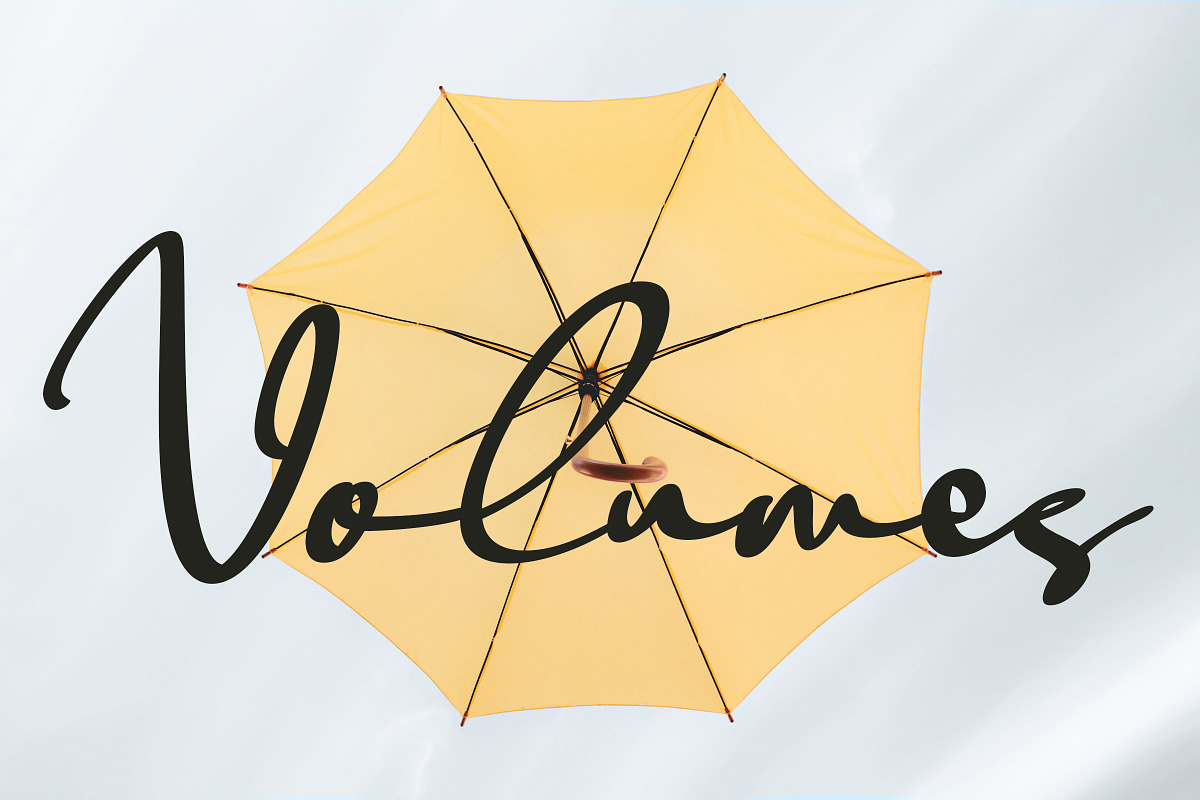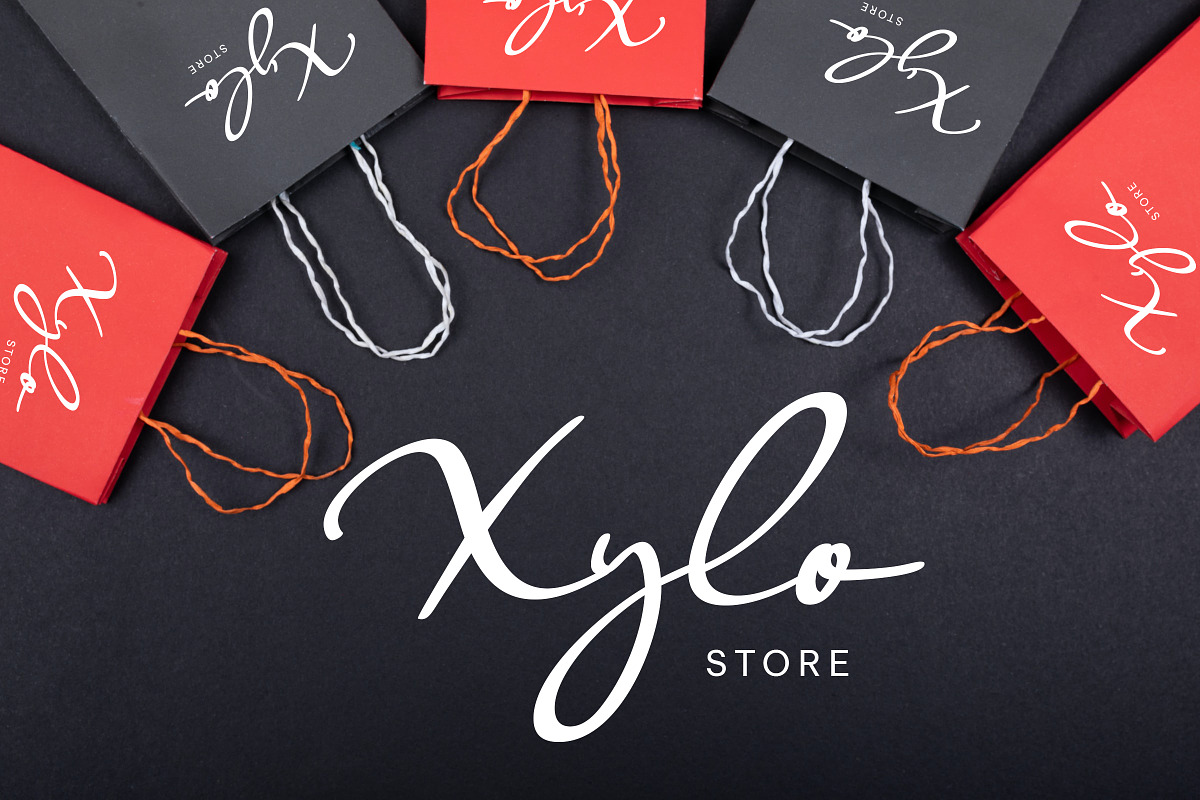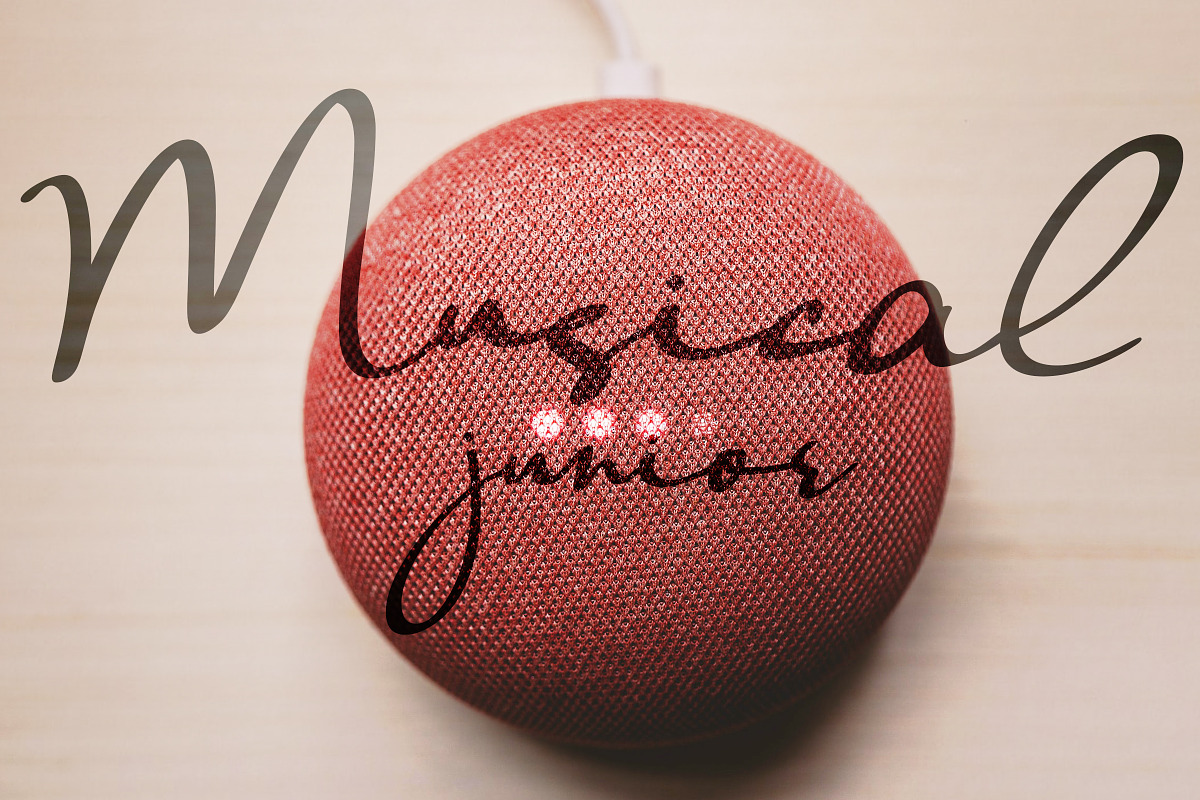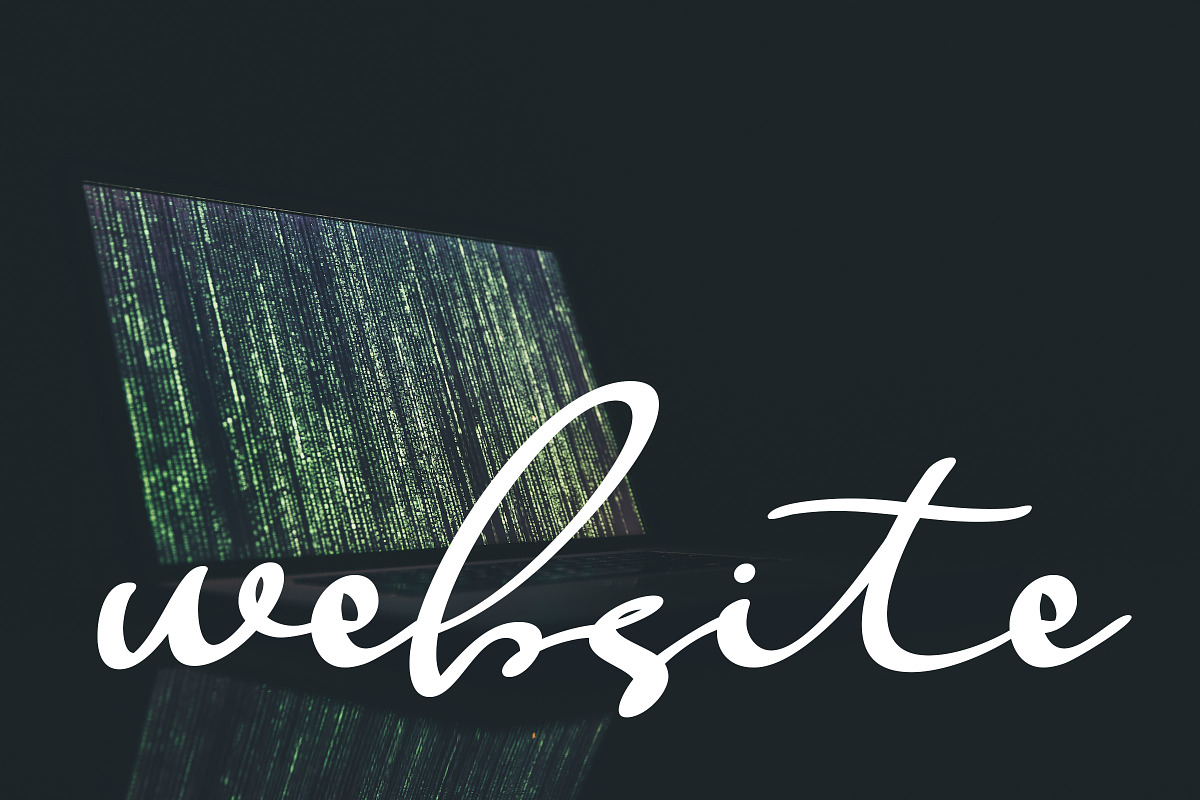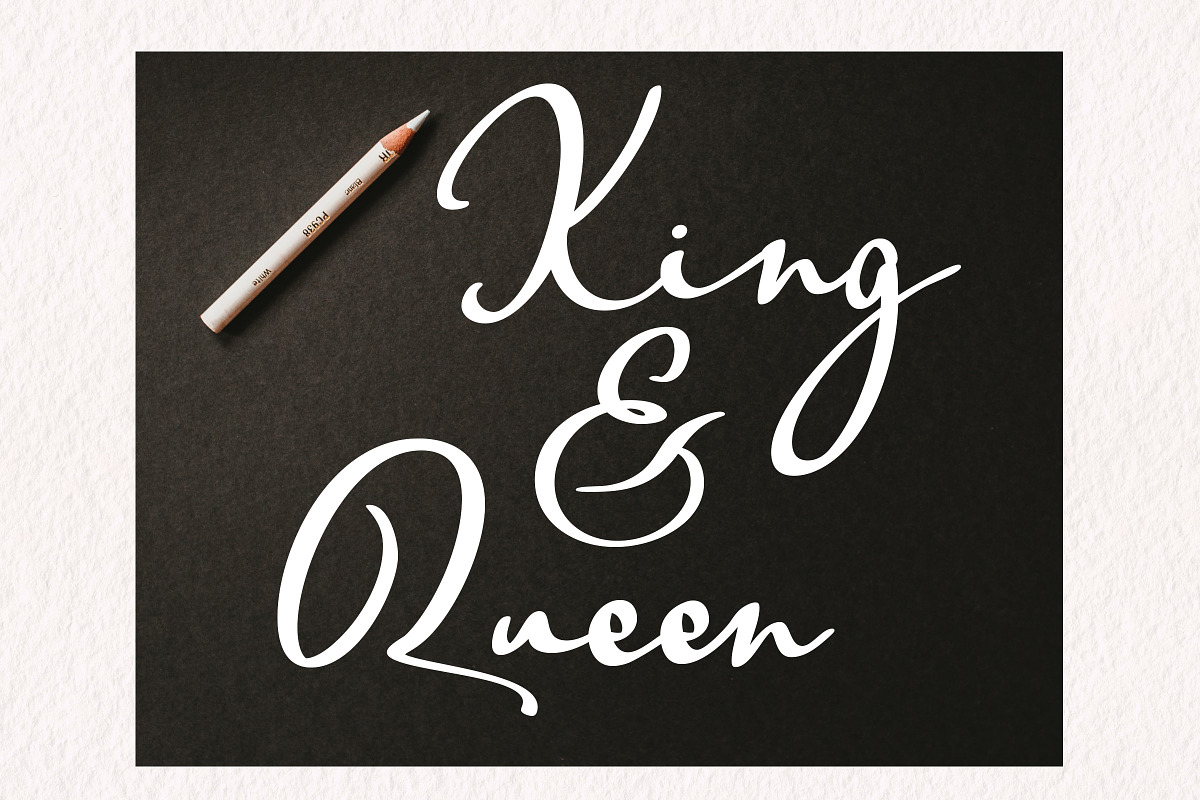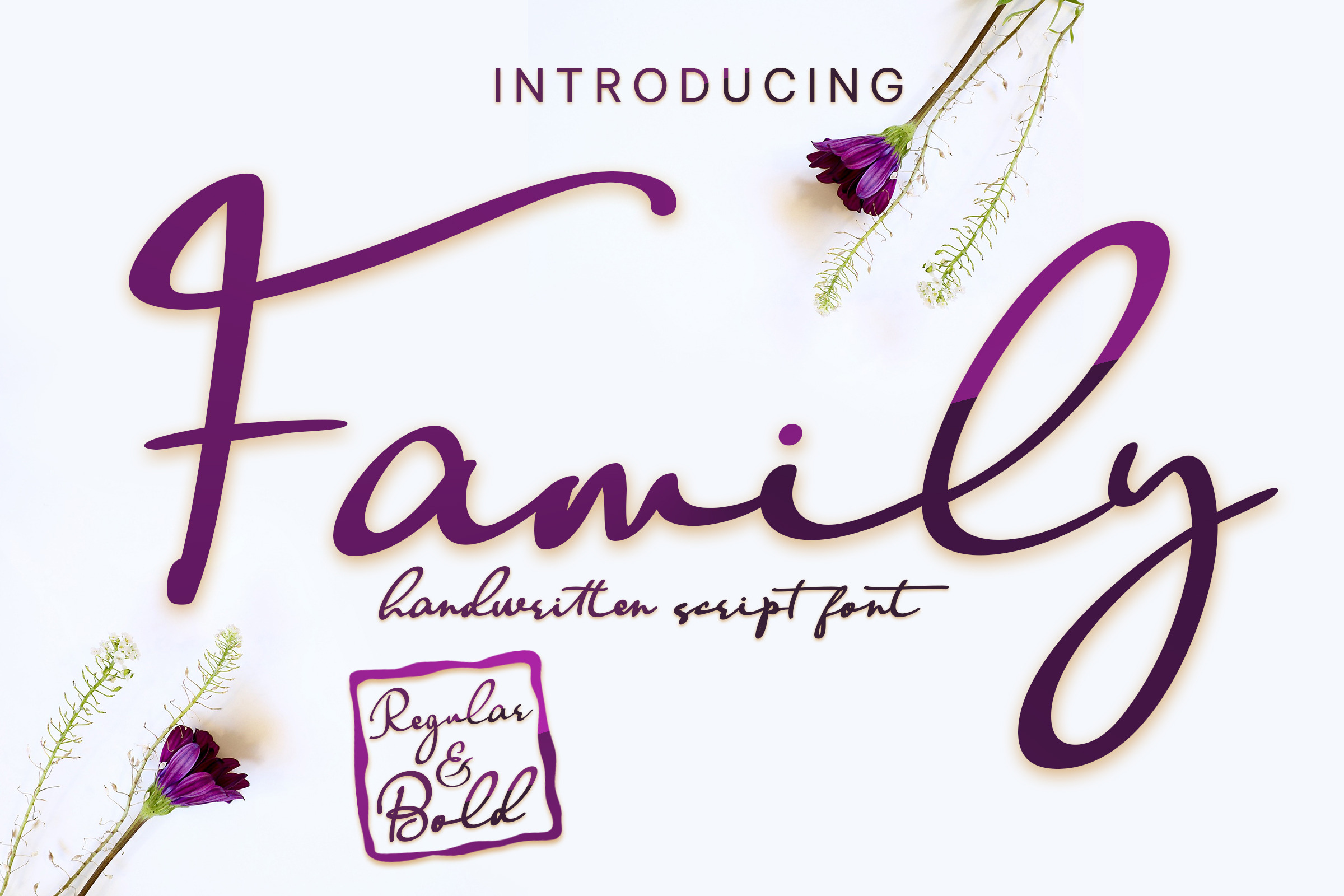
Family Handwritten Font
Family is a flowing and delicate handwritten font that embodies charm and elegance in every character. Use it for projects that need lovely, romantic typography! Font includes all lowercase and uppercase characters, numbers, alternate, swash, punctuation ,an array of standard ligatures and a selection of international characters as well. This font is PUA encoded which means you can access all of the glyphs and swashes with ease! (please type the preview to see if I have what you need!)